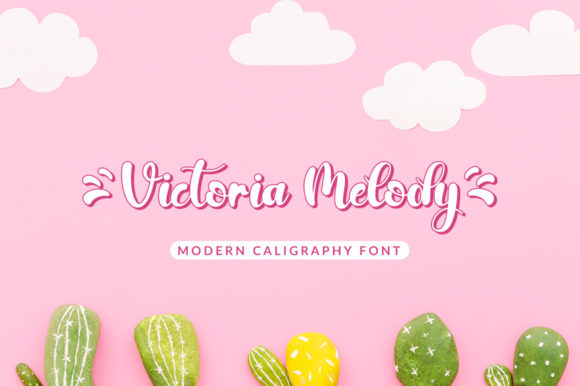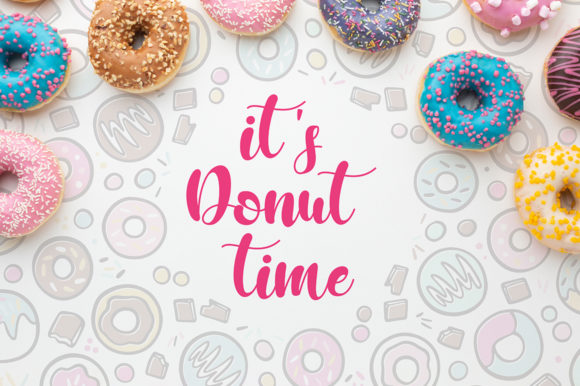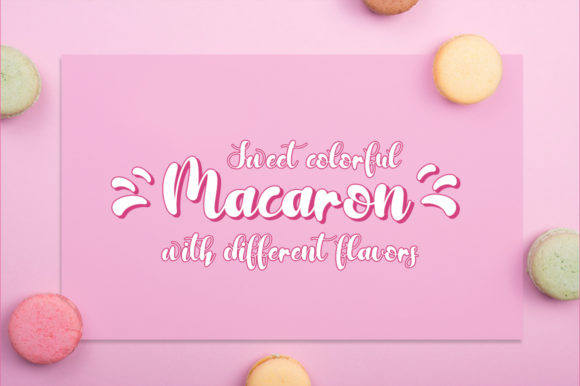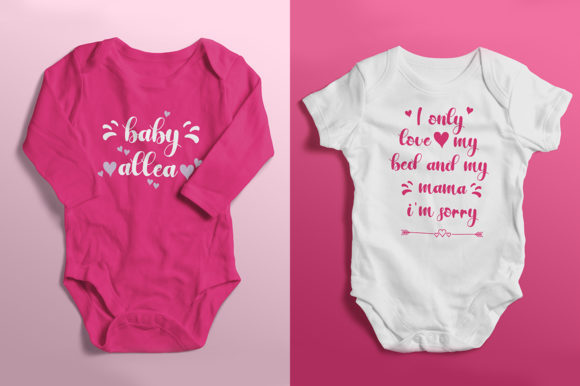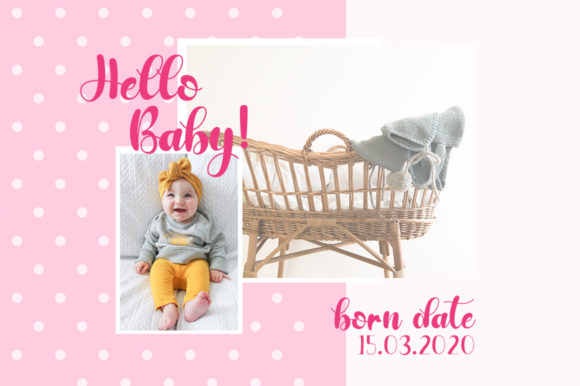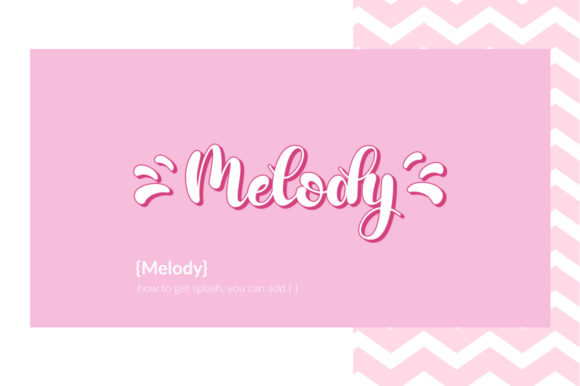
Victoria Melody Font
About Victoria Melody Font
Victoria Melody is a cute and casual handwritten font with an incredibly friendly feel. Whether you’re looking for fonts for Instagram or calligraphy scripts for DIY projects, this font will turn any creative idea into a true piece of art!